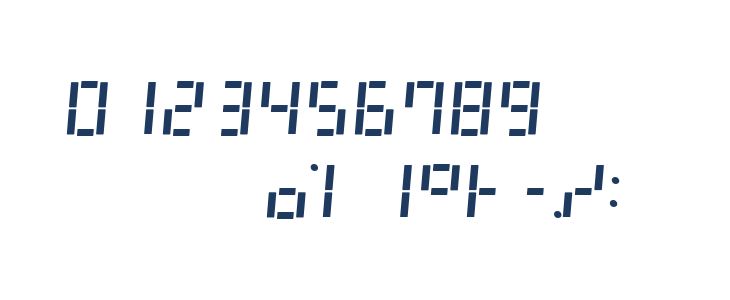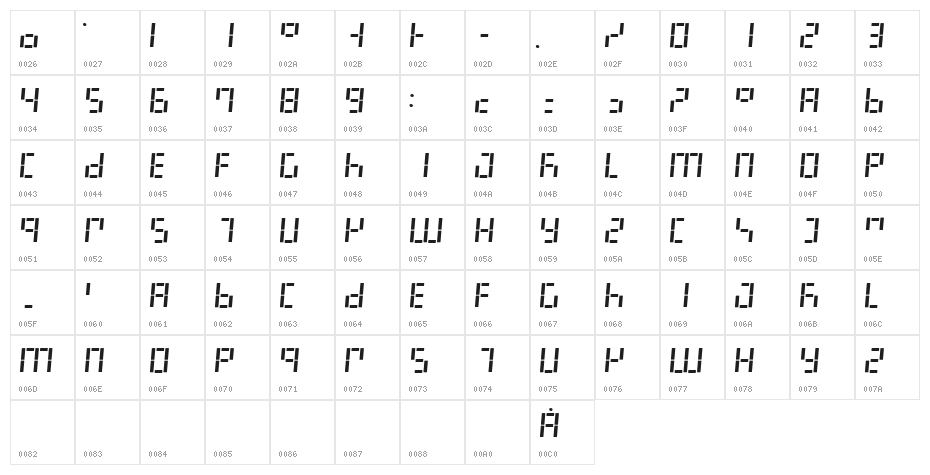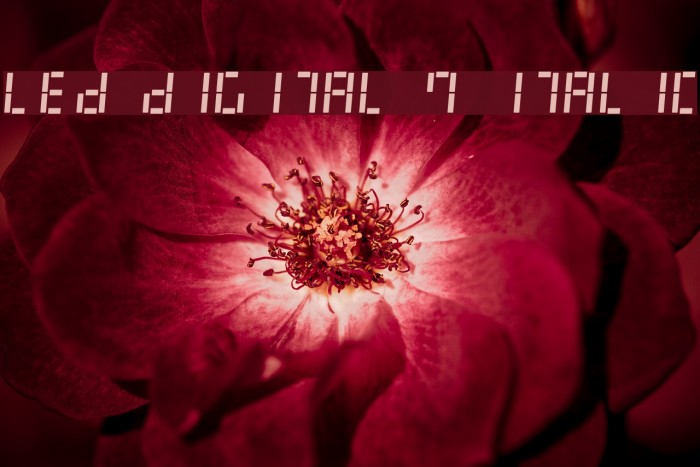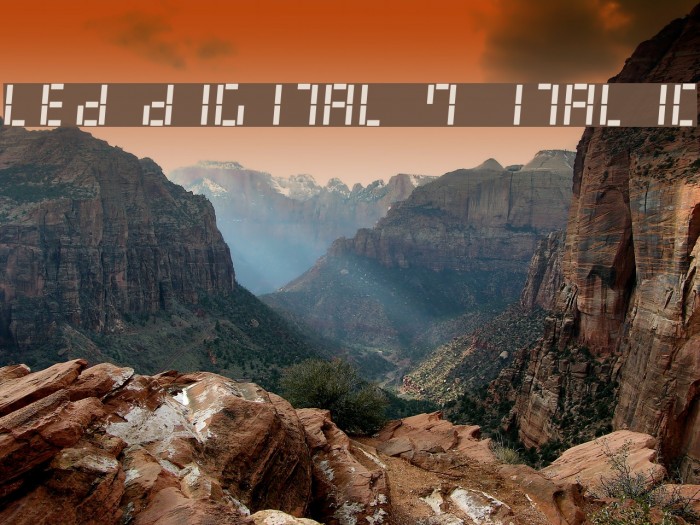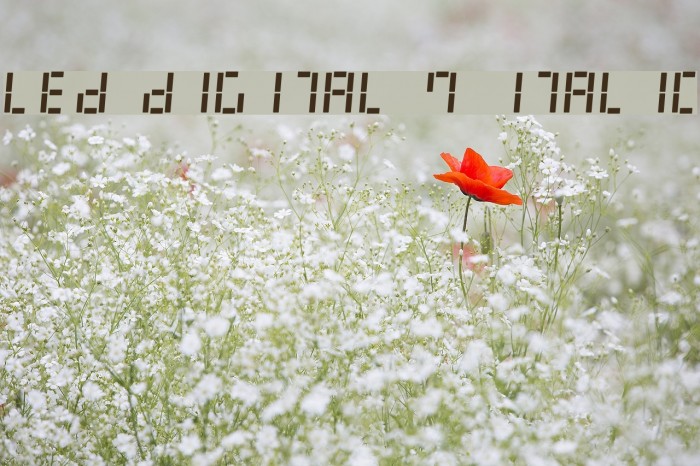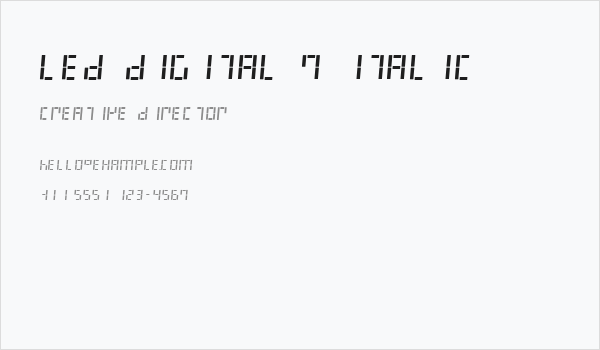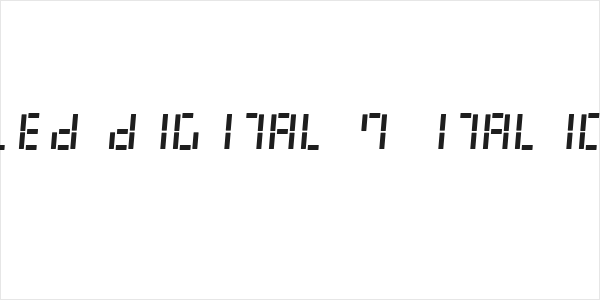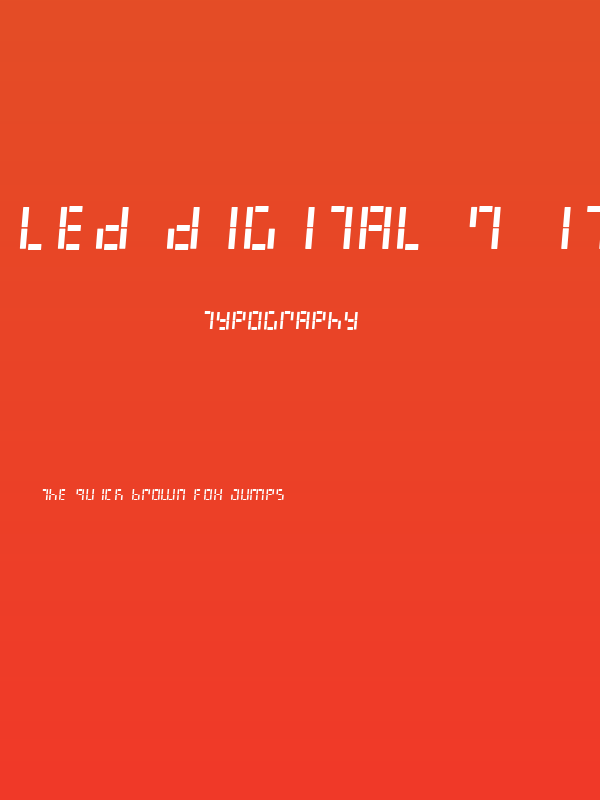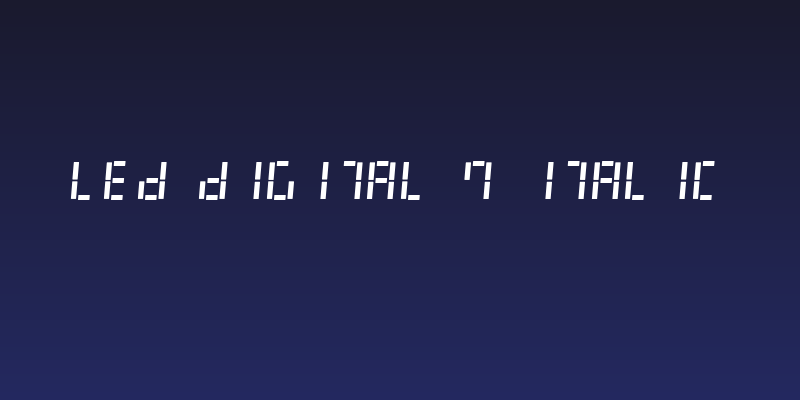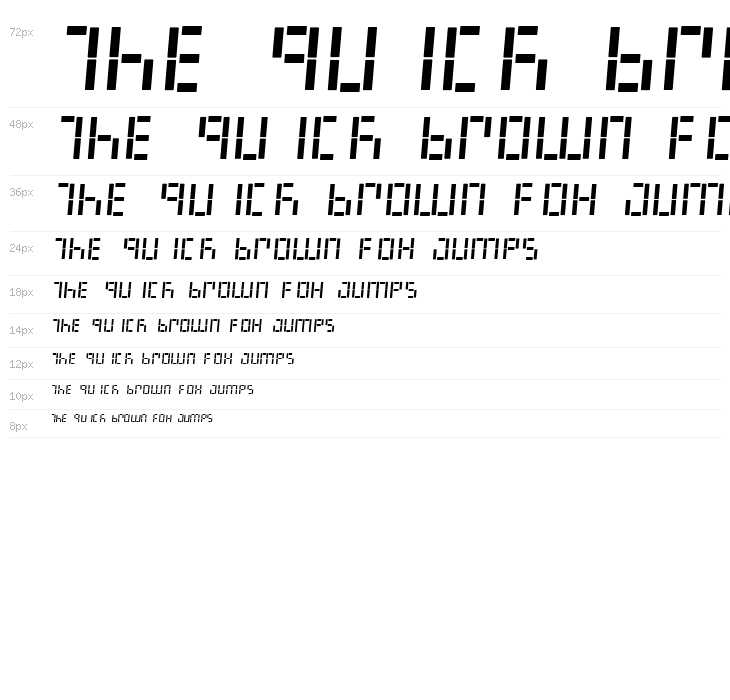
LED Digital 7 Italic Font
LED Digital 7 Italic Description
This font is a digital-style typeface that mimics the appearance of LED displays. It features a blocky, segmented design that is reminiscent of digital clocks and calculators. The characters are italicized, adding a dynamic and modern touch to the otherwise rigid structure. Each character is composed of distinct segments, creating a pixelated effect that is both retro and futuristic. The font is highly legible, making it suitable for digital-themed projects. Its unique style captures the essence of technology and innovation, making it ideal for use in tech-related designs.
Use CaseHeadlines, Logos, Digital displays
Proposed ProjectsIdeal for tech-themed designs, digital interfaces, retro-futuristic projects, and electronic displays.